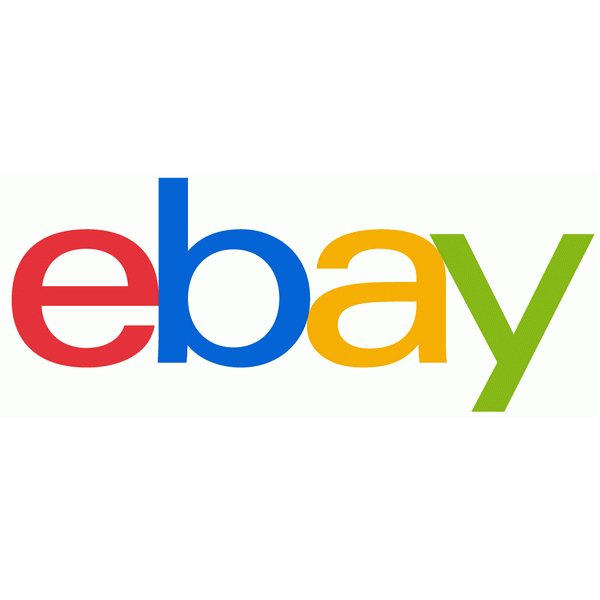
Ebay Font
Fonts in UseEbay is an online marketplace where people and businesses can buy and sell goods and services. It was founded in 1995 and is one of the world's largest e-commerce platforms.
In 2012, eBay updated its logo, which now features the logotype letters in a straight and uniform manner, set in the commercial font Univers 53 Extended, while retaining the original colors.